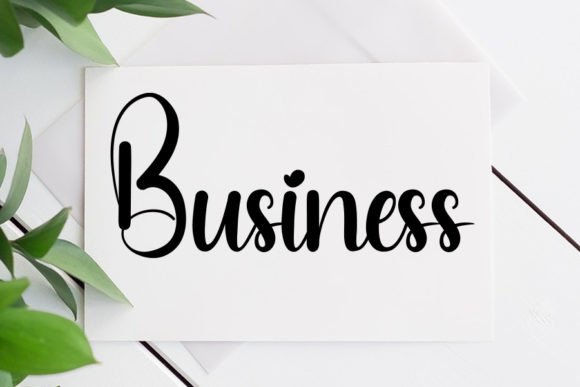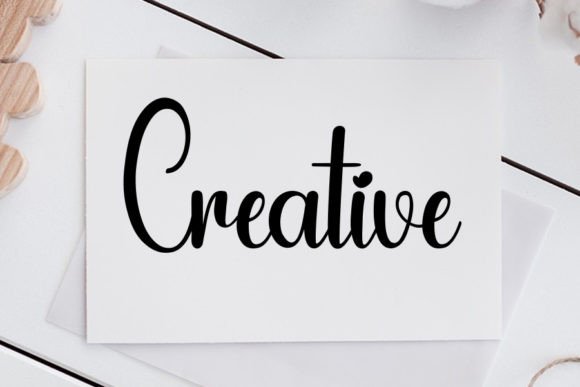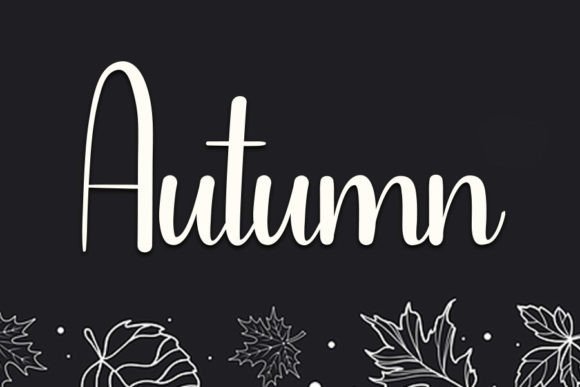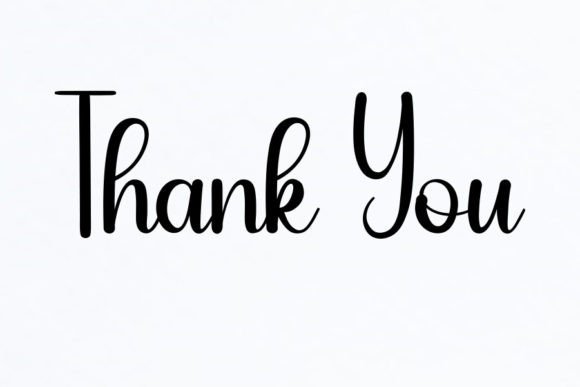
Deck the Halls with Typography
As the festive season approaches, designers are itching to create something magical. There’s something special about crafting a design that captures the essence of Christmas, don’t you think? It’s the perfect time to break out your favorite font and get creative.
That’s where the Christmas Font comes in – a beautiful, handwritten font that’s sure to make your designs stand out. Whether you’re creating a logo, branding, or a quote, this font is the perfect choice to add a touch of holiday cheer to your work. With its unique and beautiful touch, every letter is a work of art, making your design come alive!
Key Features of Christmas Font
- Font Family: A custom-designed font family, specifically created for the holiday season.
- Unique Characteristics: Features festive and holiday-themed glyphs, including ornaments, snowflakes, and other winter-inspired elements.
Designer Review: Christmas Font
I recently had the chance to review the “Christmas Font” and I must say it’s a mixed bag. Here’s what I thought:
- The font is festive and fun, perfect for holiday-themed designs.
- The bold, cursive style is easy to read and adds a playful touch to any project.
- The font is well-suited for titles, headings, and short phrases.
- The font can feel a bit over-the-top, which may not be suitable for more subdued designs.
- The characters may not be as detailed as some users might prefer.
- The font may not be ideal for large blocks of text due to its playful, cursive nature.
Overall, I think the “Christmas Font” is a fun, festive addition to any holiday design project. While it may not be suitable for every use case, it’s a great choice when you need a playful, attention-grabbing font. Just be mindful of its limitations and use it thoughtfully.
For maximum impact, use Christmas font in conjunction with festive graphics, such as snowflakes, holly, or candy canes. Common use cases include:
- Christmas card designs
- Holiday party invitations
- Newspaper or magazine ads
- Website headers and banners
Alternative Christmas Fonts for Designers
Bethlehem Script
Bethlehem Script is a beautiful, elegant font that captures the spirit of Christmas. It’s perfect for creating a sophisticated and luxurious look in your designs. Use it for invitations, greeting cards, or any other project where you want to convey a sense of refinement and tradition. Compared to Christmas Font, Bethlehem Script is more refined and less playful, making it suitable for a wider range of design applications.
Creamy Craft
Creamy Craft is a whimsical, hand-drawn font that adds a touch of warmth and personality to your designs. It’s ideal for projects that require a more casual, approachable tone, such as social media graphics, blog posts, or product packaging. Unlike Christmas Font, Creamy Craft has a more rustic and organic feel, making it perfect for designs that want to evoke a sense of handmade charm.
Merriweather is a classic, serif font that exudes a sense of tradition and timelessness. It’s suitable for projects that require a sense of elegance and sophistication, such as wedding invitations, holiday menus, or corporate branding. Compared to Christmas Font, Merriweather is more formal and less festive, making it an excellent choice for designs that need to convey a sense of authority and gravitas.